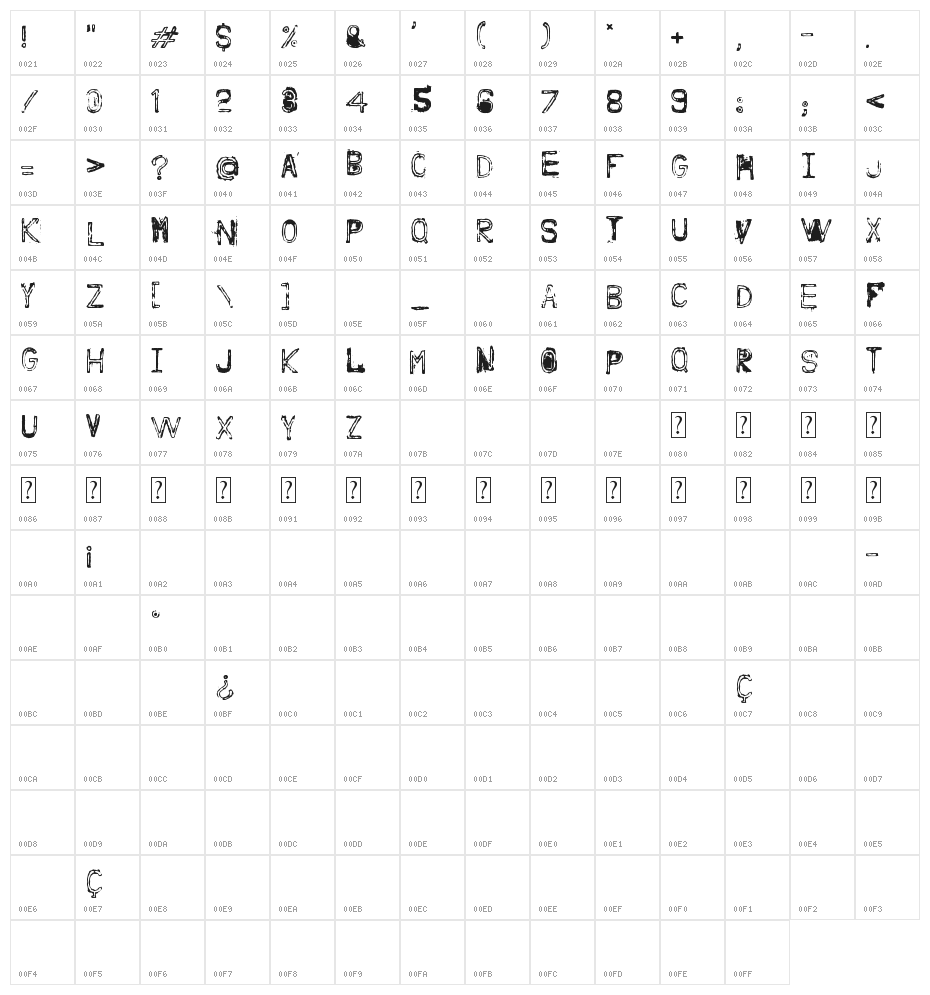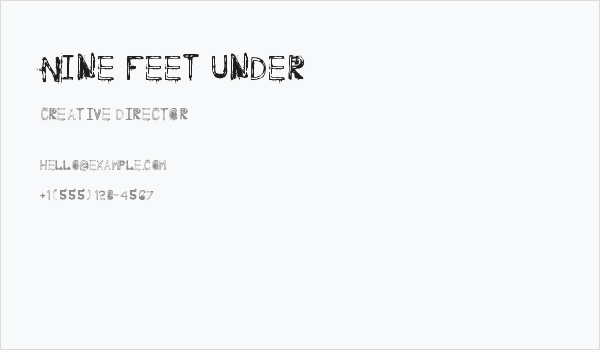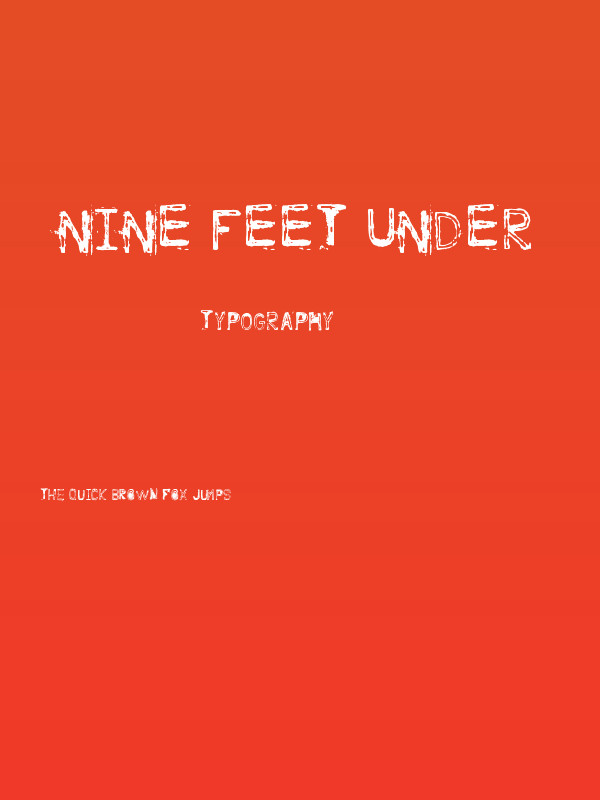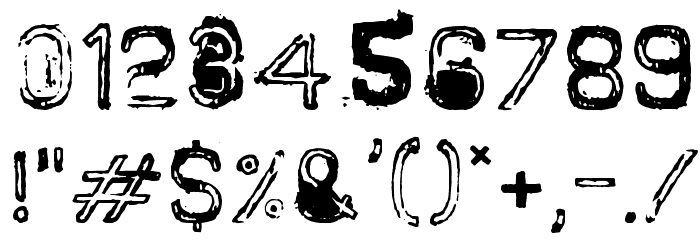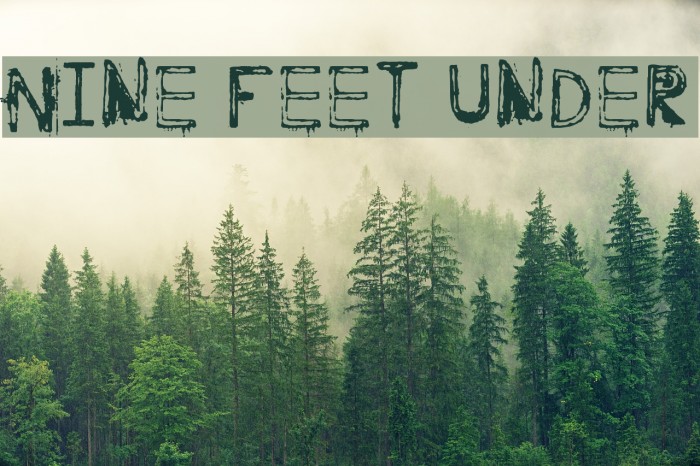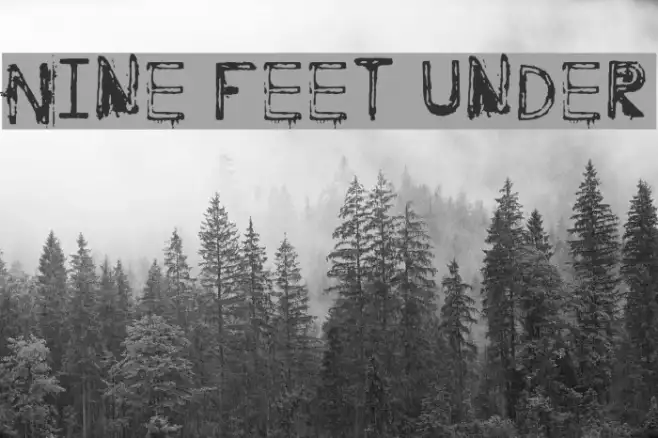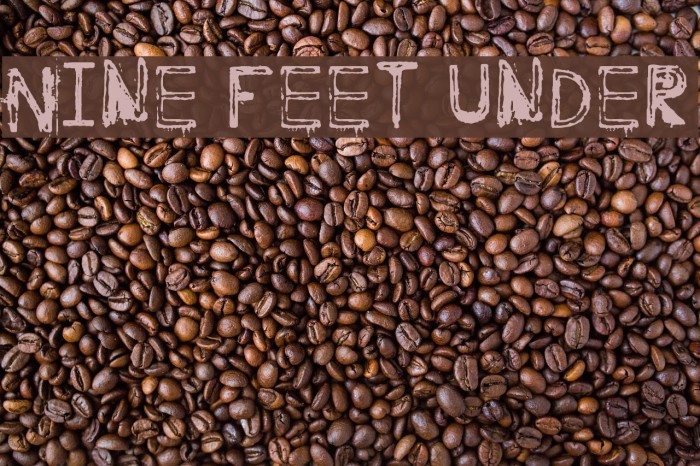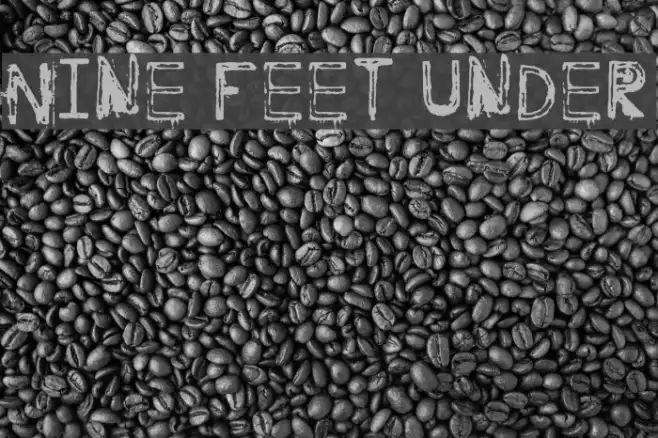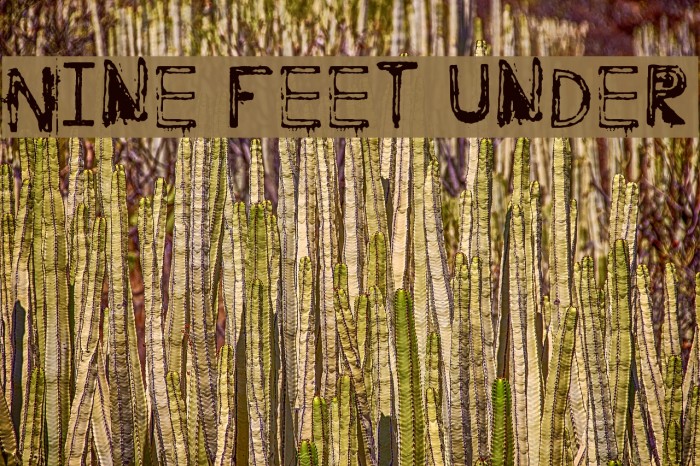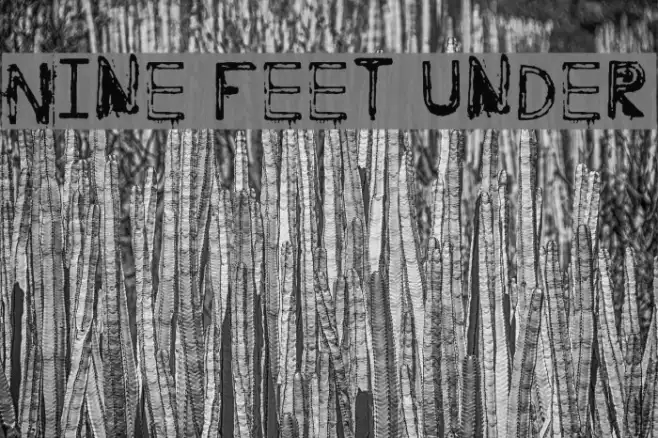
Nine Feet Under Font
Nine Feet Under Description
This font features a distressed and grungy style, characterized by rough edges and an uneven texture that gives it a worn, weathered appearance. The letters are bold and impactful, with a hand-crafted feel that suggests a sense of rawness and authenticity. The uppercase and lowercase letters maintain a consistent design, while the numbers and special characters follow the same rugged aesthetic. This font is ideal for projects that require a bold statement or an edgy, rebellious vibe.
| Overall Style | Grunge, Urban, Edgy |
| Use Case | Headlines, Posters, Album Covers |
| Proposed Projects | Ideal for album covers, posters, urban-themed designs, and any project needing a gritty, rebellious look. |